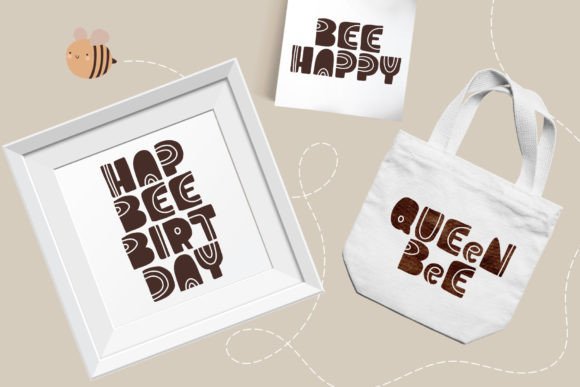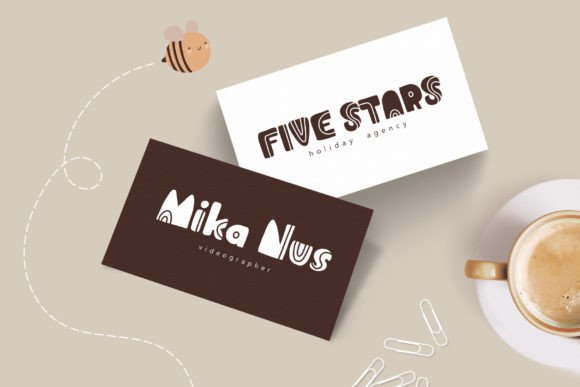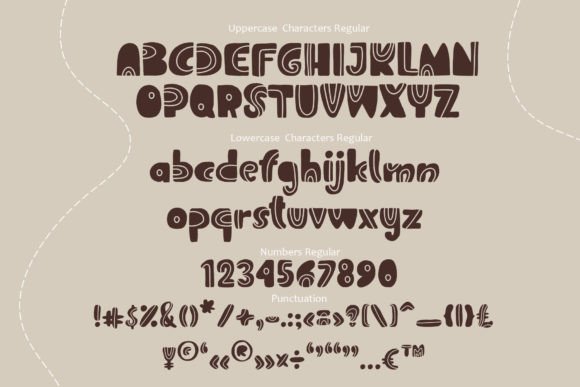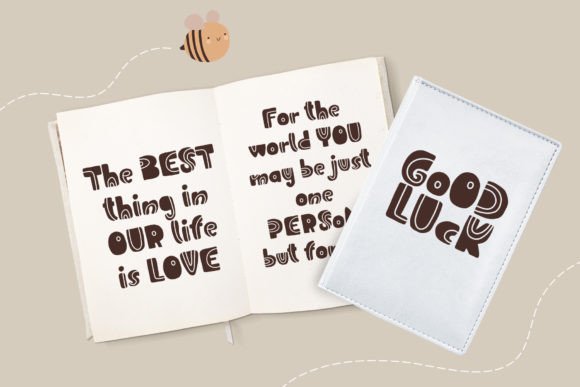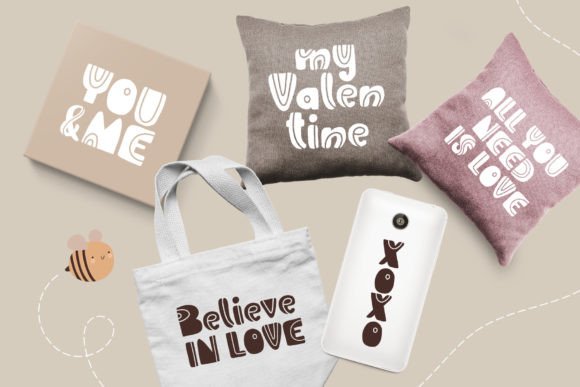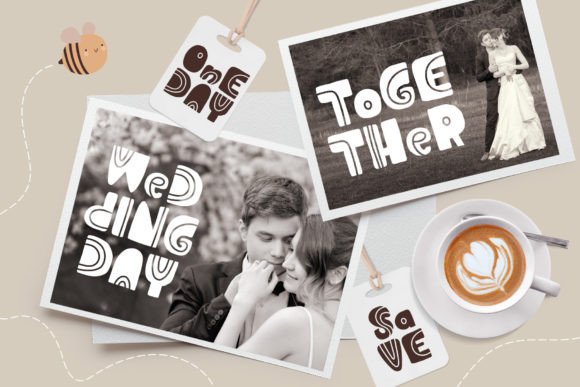
The Joy of Bubble Font: A Fun and Bold Decorative Font
I’ll never forget the time I was working on a project for a client who wanted a fun and playful vibe. I had a clear idea of what I wanted to achieve, but somehow, the font just wasn’t cooperating. I spent hours scrolling through font libraries, trying to find the perfect match. That’s when I stumbled upon Bubble Font, and it was love at first sight! 💕
Bubble Font is a fun and bold decorative font with a cool, Scandinavian twist. Its original look makes it perfect for a wide range of crafty ideas, from letterheads and titles to stationery. In this article, I’ll share my honest review of Bubble Font, provide a practical guide on how to use it, and explore similar fonts and alternatives.
My Honest Review of Bubble Font
- 💥 Unique and playful design that adds a touch of whimsy to any project
- 🌈 Versatile and suitable for a wide range of creative projects
- 🔍 OpenType features and glyphs for added customization
- ⚠️ Limited use for body text due to its bold and decorative nature
- 🤔 May not be suitable for projects requiring a more formal tone
The Backstory of Bubble Font
Bubble Font was designed by a Scandinavian type designer who wanted to create a font that captured the playful and creative spirit of the region. Inspired by traditional Scandinavian design principles, Bubble Font combines bold and delicate elements to create a unique and eye-catching font.
| Font Name | Bubble Font |
| Author | Happy Letters |
Q: What is Bubble Font?
A: Bubble Font is a fun and bold decorative font with a cool, Scandinavian twist.
Q: Is Bubble Font suitable for body text?
A: No, Bubble Font is best used for titles, headings, and short paragraphs due to its bold and decorative nature.